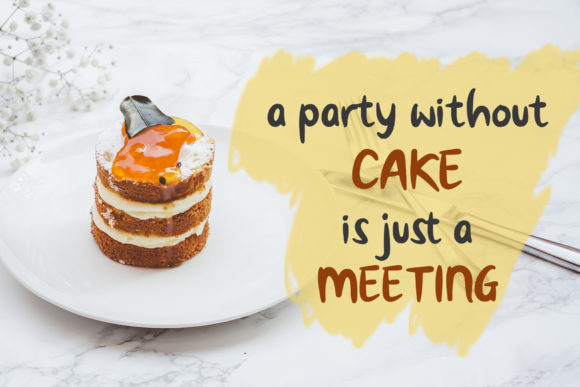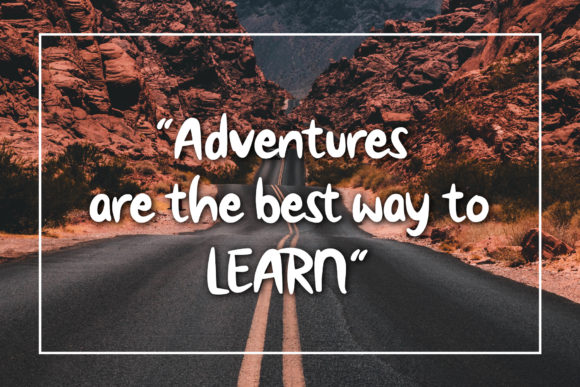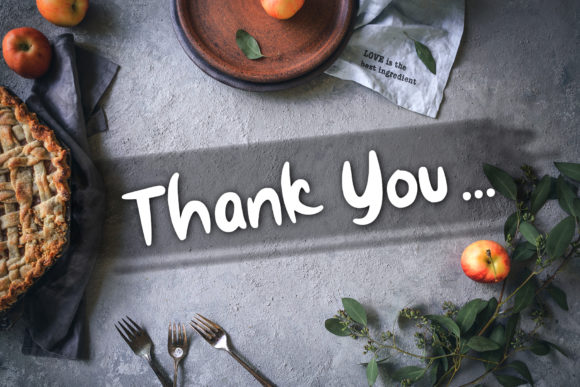
Introduction to Rush Creamy Font
Have you ever stared at a blank page, eager to bring a creative project to life, only to be halted by the perfect font? You know, the one that elevates your design from bland to grand? That moment of hesitation is where the magic of the Rush Creamy Font begins.
With its playful and whimsical style, the Rush Creamy Font is the perfect companion for any creative endeavor. This free download is a game-changer for designers seeking a high-quality font that adds a touch of sweetness to their designs. Its transparent background makes it an ideal choice for overlaying text on images or creating stunning graphics.
Rush Creamy Font
- High-quality font designed for creative projects, ideal for use in graphic design, digital art, and typography.
- Features a unique, creamy texture that adds a touch of elegance to any design.
- Transparent background, making it easy to overlay on any image or design element.
- Perfect for designers, artists, and creatives looking for a unique and high-quality font to elevate their work.
Honest Review: Rush Creamy Font
I recently had the chance to work with the Rush Creamy Font for a creative project, and I must say, it’s been a game-changer. This high-quality font is a design resource that I’d highly recommend for any project requiring a unique touch.
What works well: ✨ The font’s creamy texture and smooth curves make it perfect for titles and headings. The transparent background feature allows for seamless integration with images and backgrounds, making it a great addition to any design. The font is also highly customizable, making it easy to adapt to different design styles.
- Unique and creative texture
- Easy customization
What doesn’t work so well: ⚠️ The font is a bit limited in terms of its character set, which can make it difficult to use for longer blocks of text. However, for titles and headings, it’s perfect.
Overall, I’m thoroughly impressed with the Rush Creamy Font and would highly recommend it as a design resource for any creative project. With its high-quality design and unique features, it’s a must-have for any designer looking to add a touch of elegance to their work.
Tips for Getting the Most Out of Rush Creamy Font
To get the most out of Rush Creamy Font, use it for headings and titles in your design project. You can also experiment with different font sizes and styles to create a unique look.
Rush Creamy Font is perfect for a variety of design projects, including blog posts, social media graphics, and presentations. Its high-quality, transparent background makes it easy to use in a variety of design contexts.
Is the Rush Creamy Font suitable for large-scale designs, such as billboards or signage?
The Rush Creamy Font is designed for high-quality printing, but its legibility may be affected at very small font sizes. For large-scale designs, it’s recommended to use the font at a larger size and to adjust the kerning and leading to ensure optimal readability. You can also experiment with different font sizes and styles to achieve the desired effect.